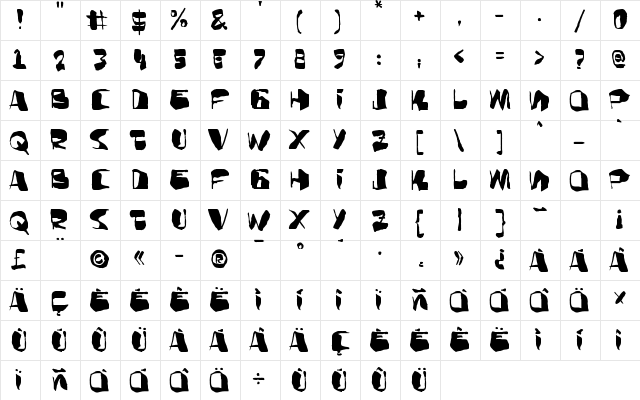
AD Bulky Note Regular Free Font
AD Bulky Note Regular
Designer: Alex Dukal
Design Context for AD Bulky Note
AD Bulky Note is a composed and adaptable typeface that performs quietly and consistently across a wide range of design contexts.
Pro Tip: Use AD Bulky Note in both headline and body roles to test its range before committing to a single application.